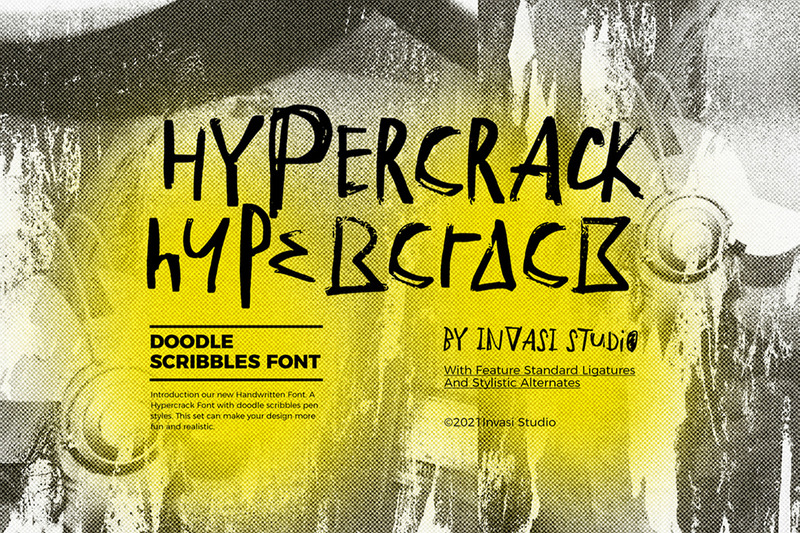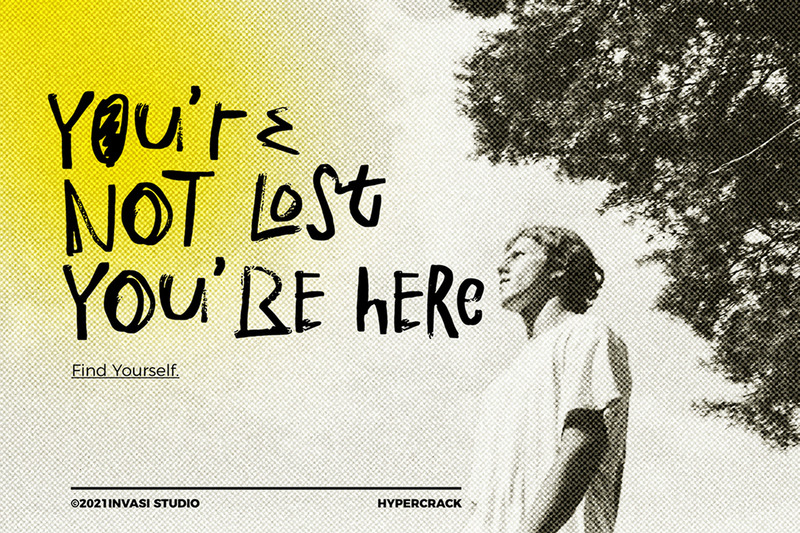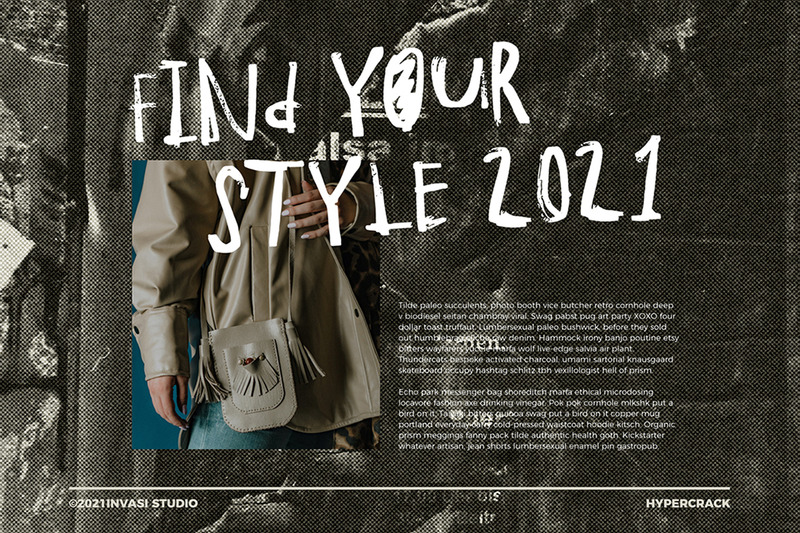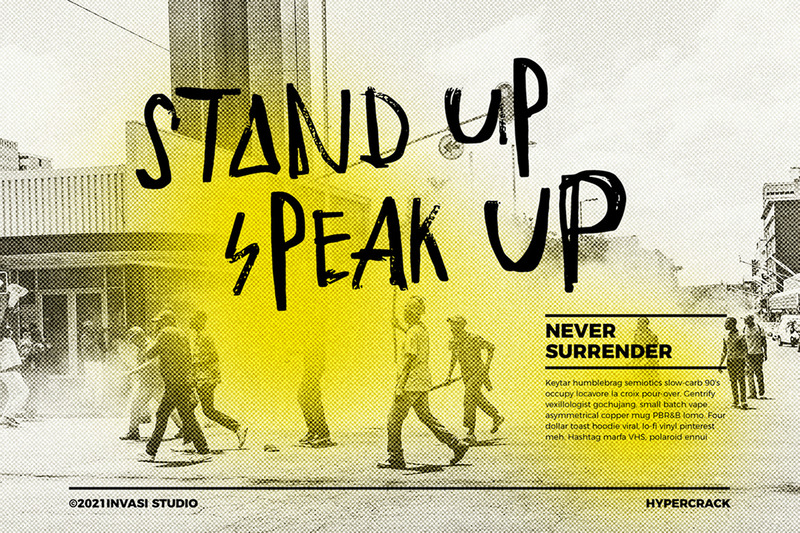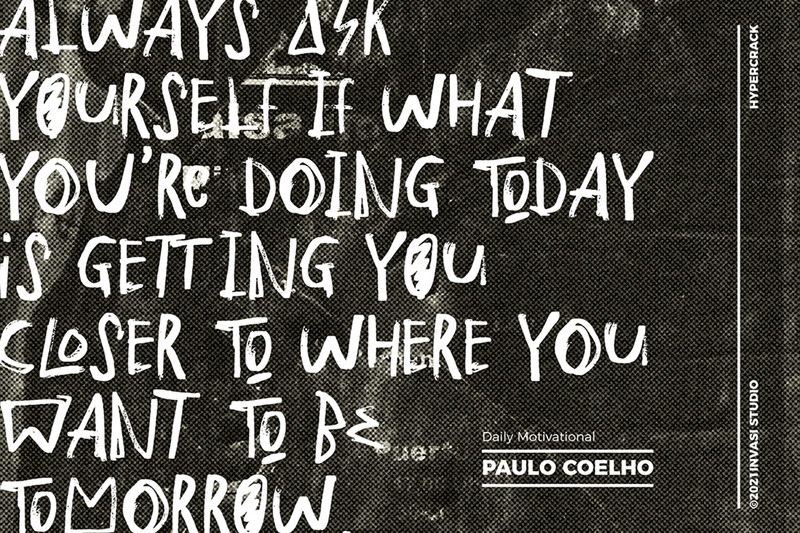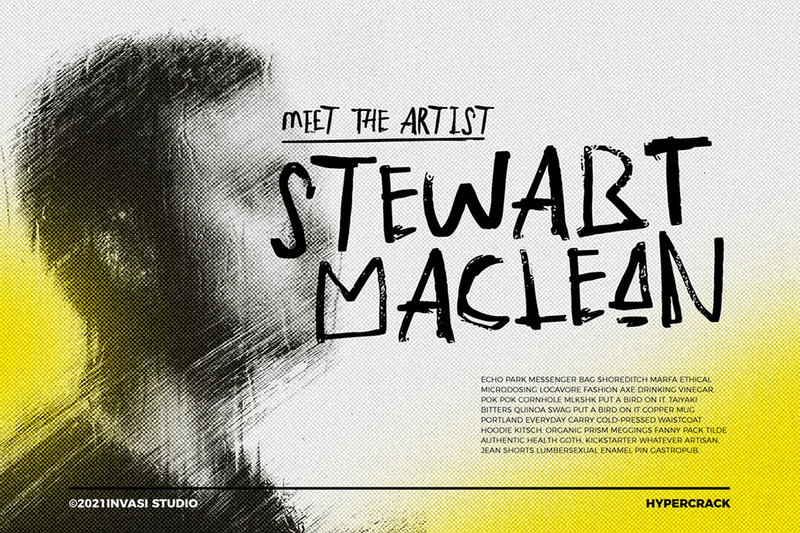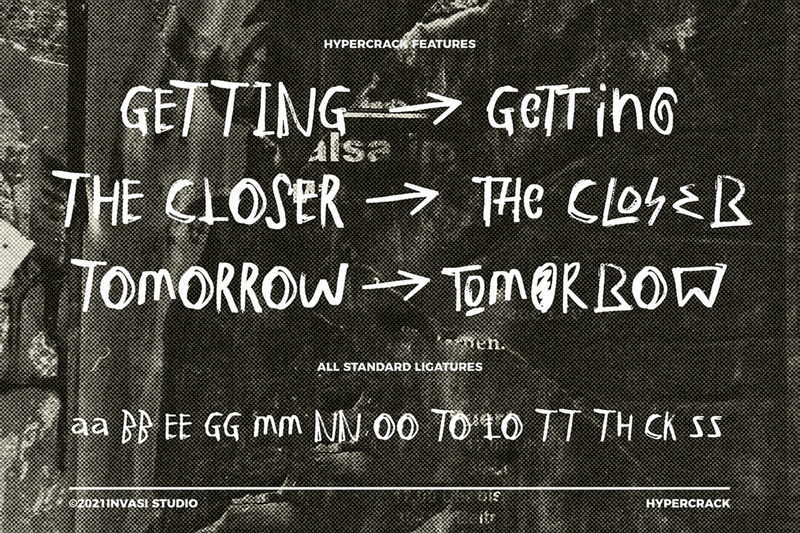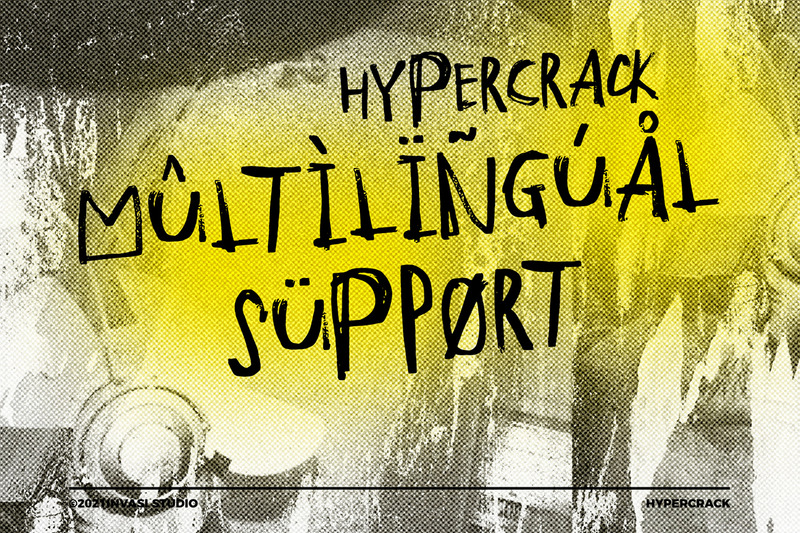
Hypercrack - Scribbles Font
Introduction of our new collection of playful doodle font styles. The Hypercrack Handwritten all-caps Font with scribbles styles font. Also, Hypercrack has a unique stylistic alternates character. So you can create a combination of whatever you want!
This font is perfect for your display project for headlines, quotes, editorial design, print posters, and much more.
Features:
• Multilanguage
• Punctuation
• Stylistic Alternates
• Standard Ligatures